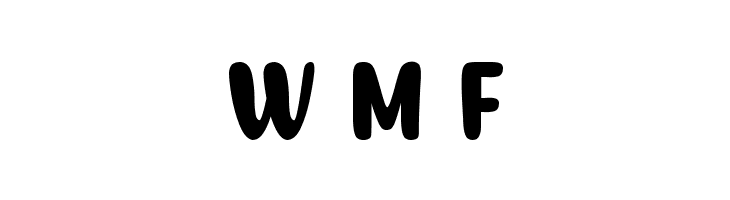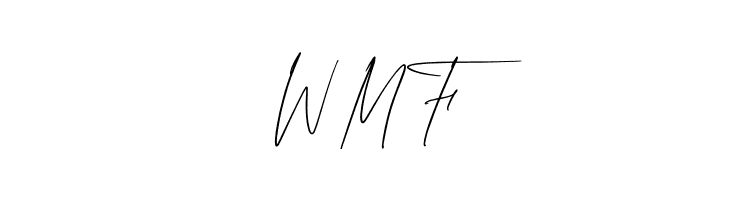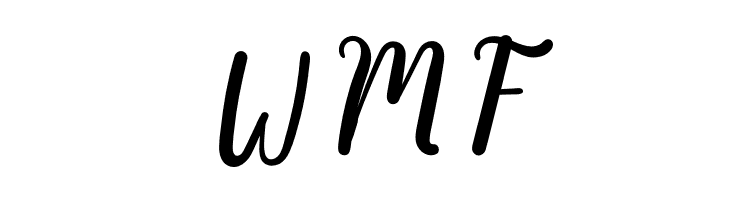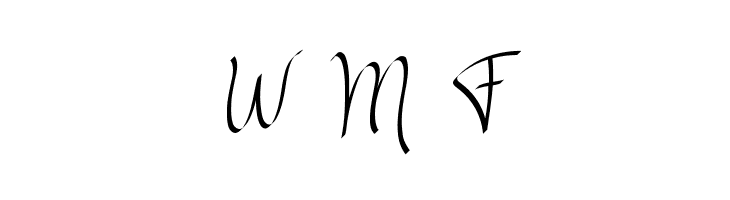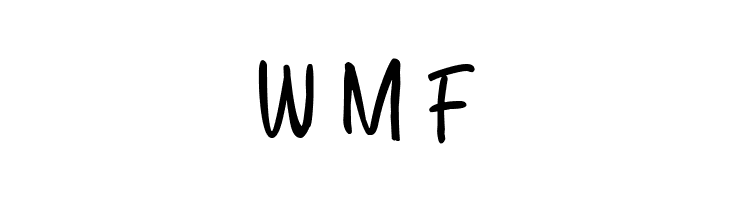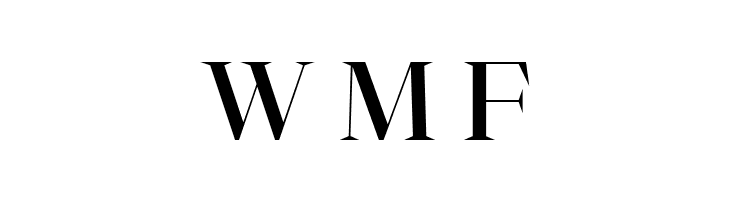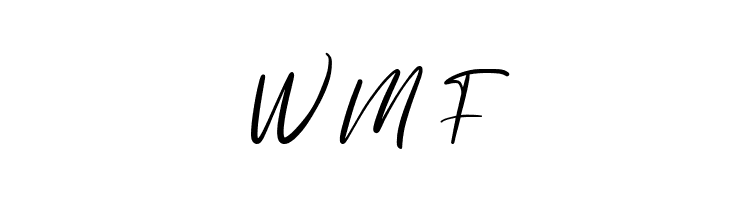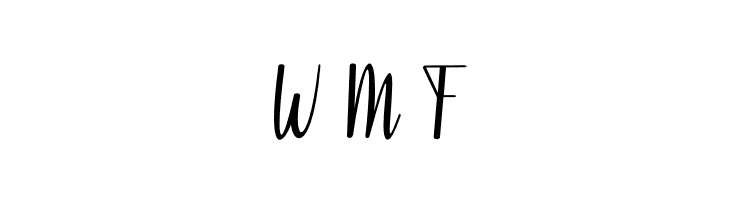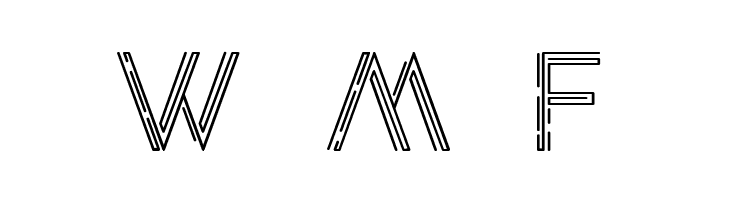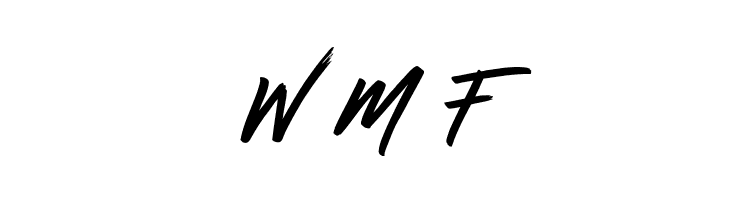
A playful, handwritten-style font with rounded edges and uniform strokes.
A playful, handwritten-style font with rounded edges and consistent stroke width.
A whimsical and decorative font with playful circular embellishments.
A modern, geometric outlined font with layered lines for a striking visual effect.
A dynamic, expressive handwritten font with elongated, flowing letterforms.
A bold, energetic handwritten font with playful and expressive strokes.
A bold, brush-style font with a hand-drawn, artistic appearance.
A classic serif font with high contrast and elegant, sharp serifs.
A rugged, hand-drawn font with a textured, brush-like appearance.
A classic serif font with high contrast and elegant strokes.
An elegant, flowing script font with sophisticated cursive letterforms.
A playful, casual handwritten font with smooth, rounded strokes.
A bold, flowing script font with elegant, connected letterforms.
A lively, handwritten font with a fluid and energetic style.
A bold, playful font with rounded, high-contrast characters.
A dynamic and fluid script font with elegant, flowing strokes.
An elegant, flowing script font with ornate uppercase and harmonious lowercase letters.
A playful, handwritten script font with bold, connected letters.
A playful, handwritten font with rounded, informal letterforms.
A playful handwritten font with rounded, consistent strokes and a casual vibe.
A playful, handwritten-style font with smooth curves and a casual slant.
A bold, hand-drawn font with an expressive and textured style.
A lively, flowing script font with elegant, cursive letterforms.
A graceful, cursive font with elegant loops and smooth strokes.
A bold, energetic script font with a handwritten feel.
A high-contrast, geometric font with artistic flair and bold visual impact.
An elegant and flowing script font with smooth, cursive strokes.
A cursive, handwritten font with elegant, flowing strokes and medium contrast.
A playful and elegant script font with a modern twist.
An elegant, flowing script font with graceful curves and a sophisticated style.
A charming and elegant script font with fluid, cursive strokes.
An elegant script font with graceful curves and decorative swirls.
A cursive, handwritten-style font with elegant, flowing strokes.
An elegant cursive font with flowing, interconnected characters.